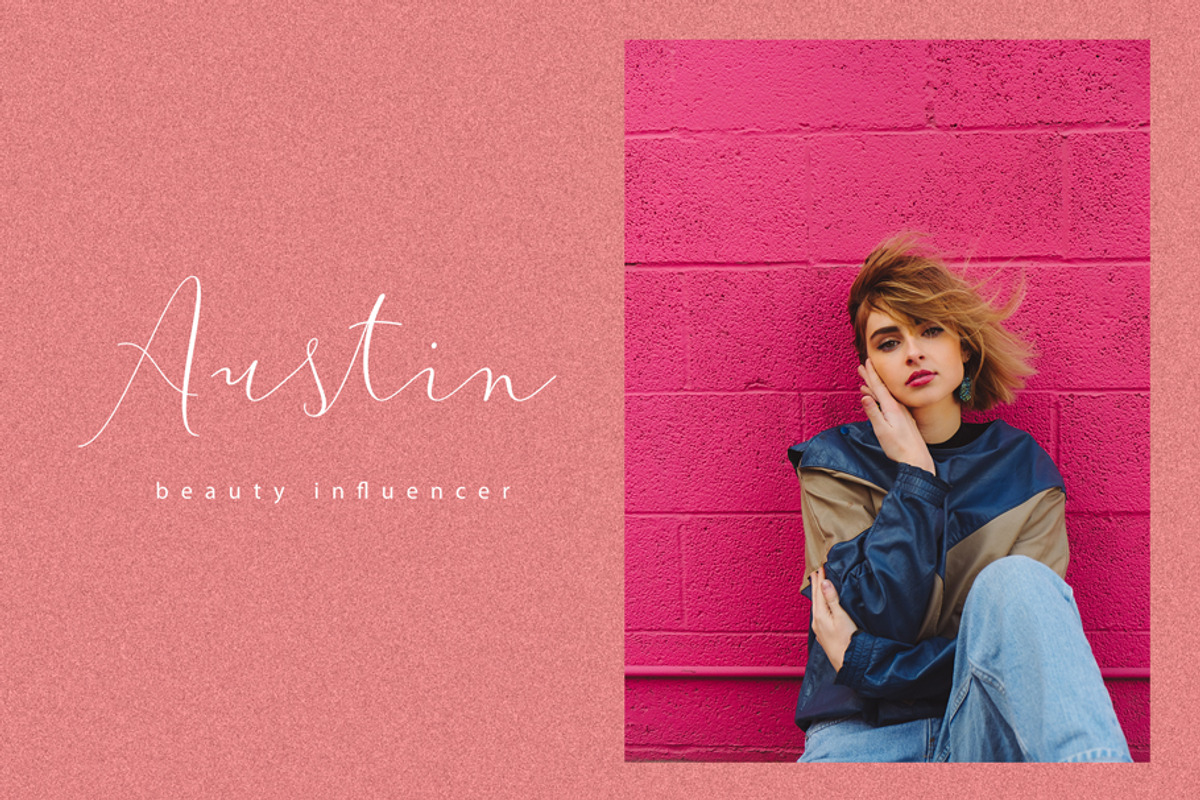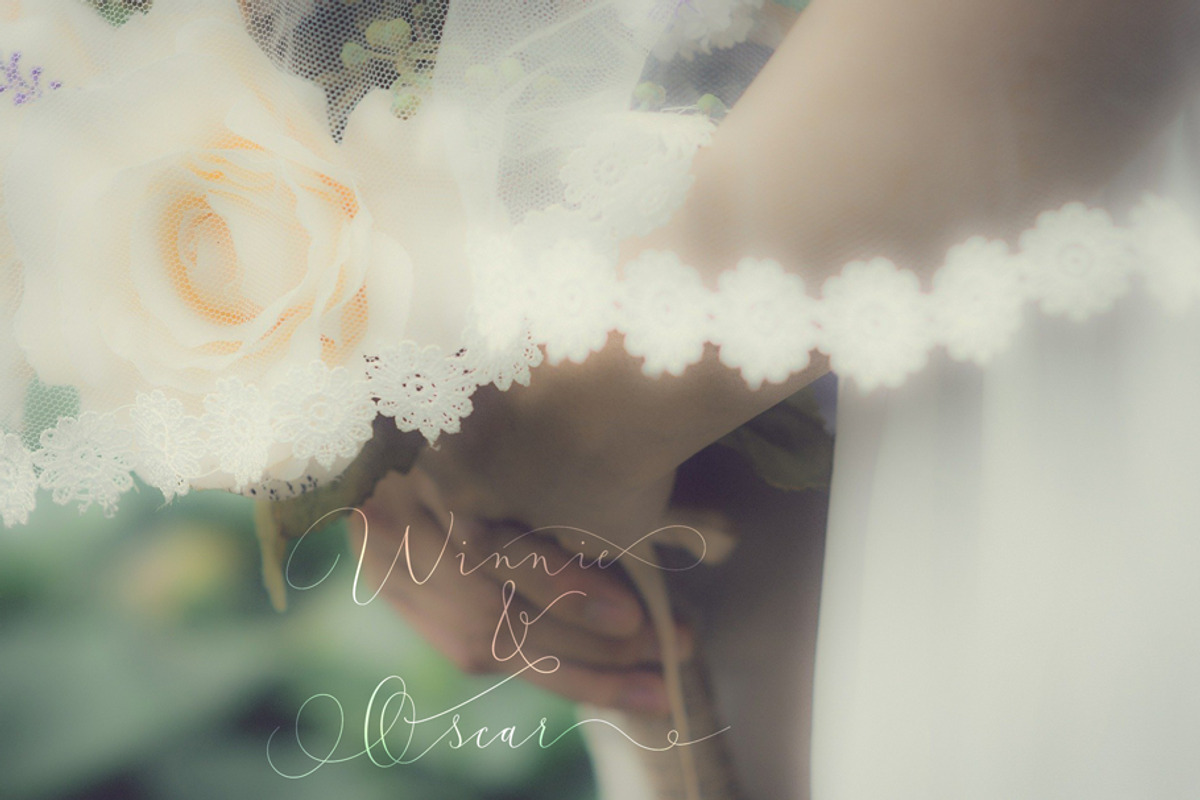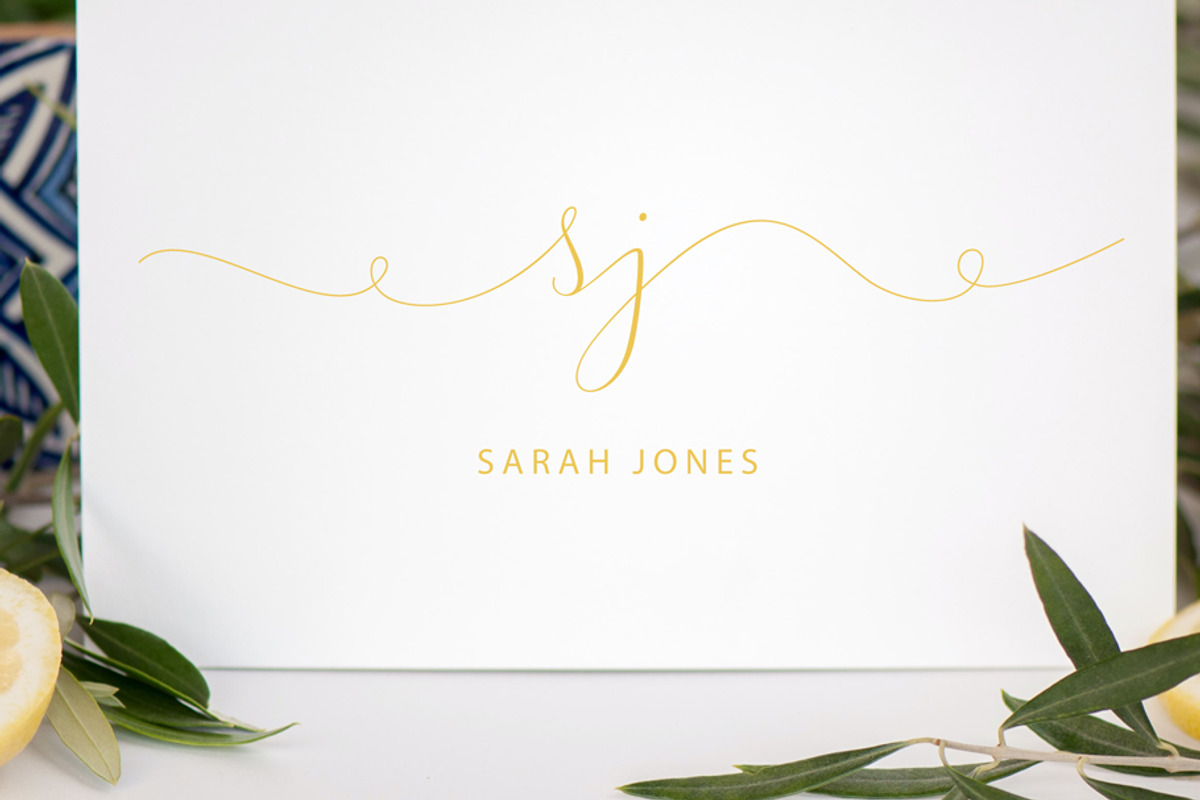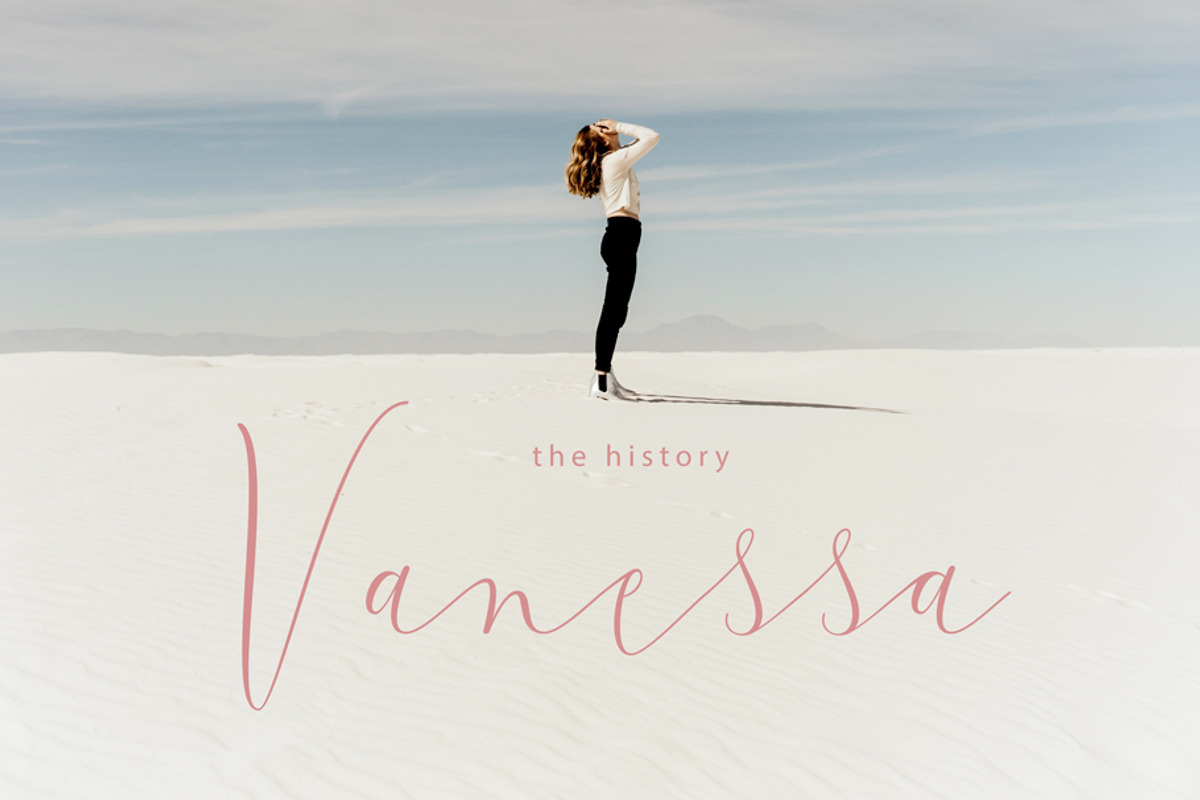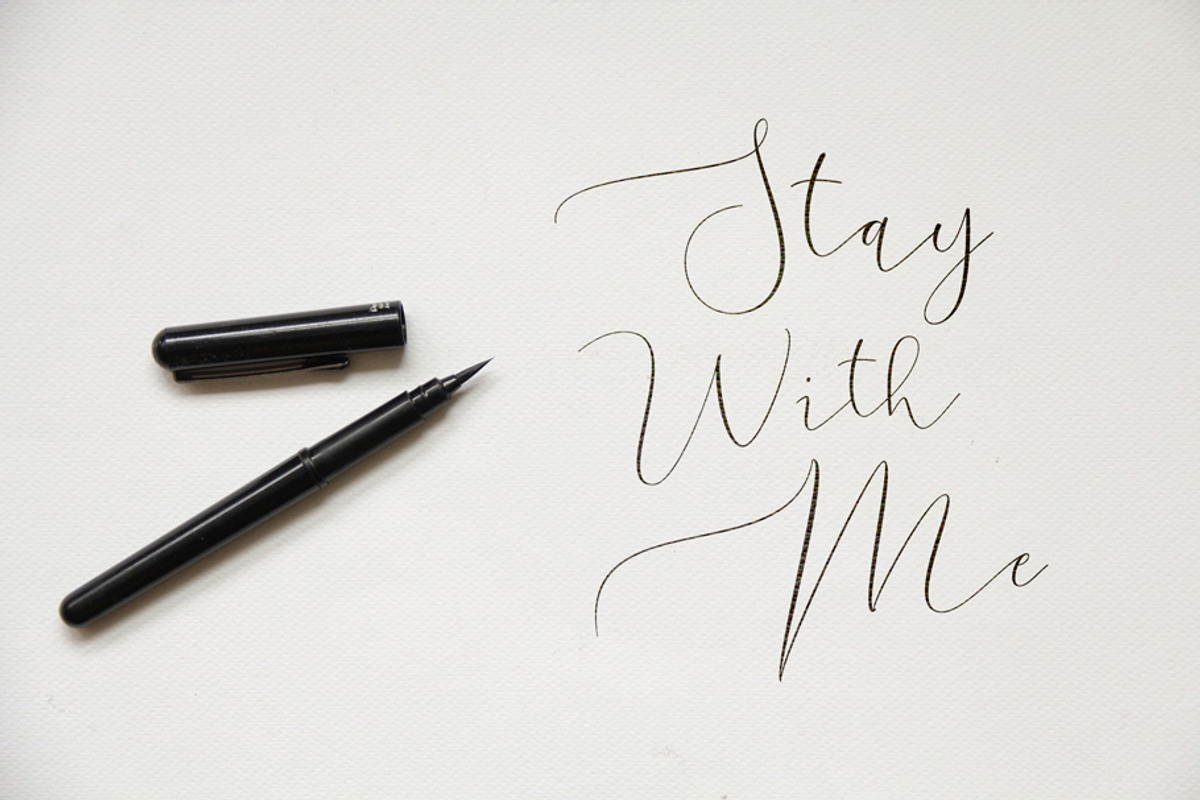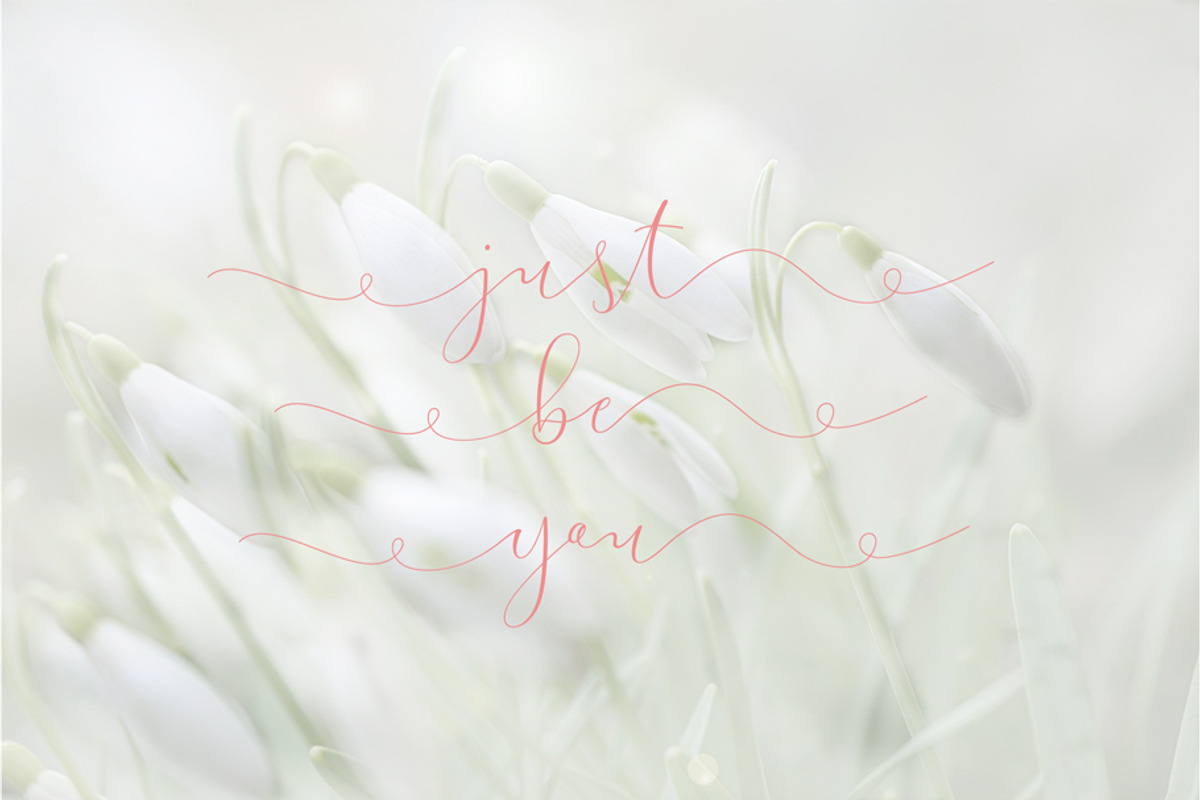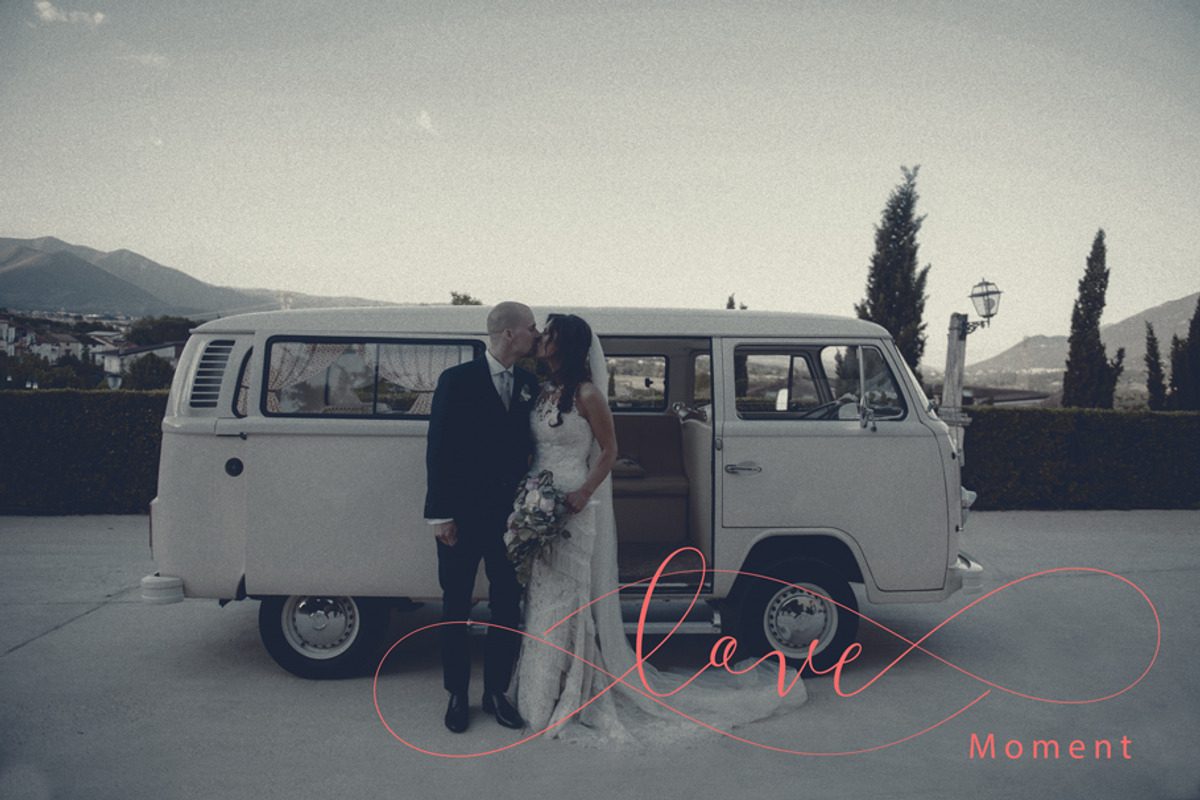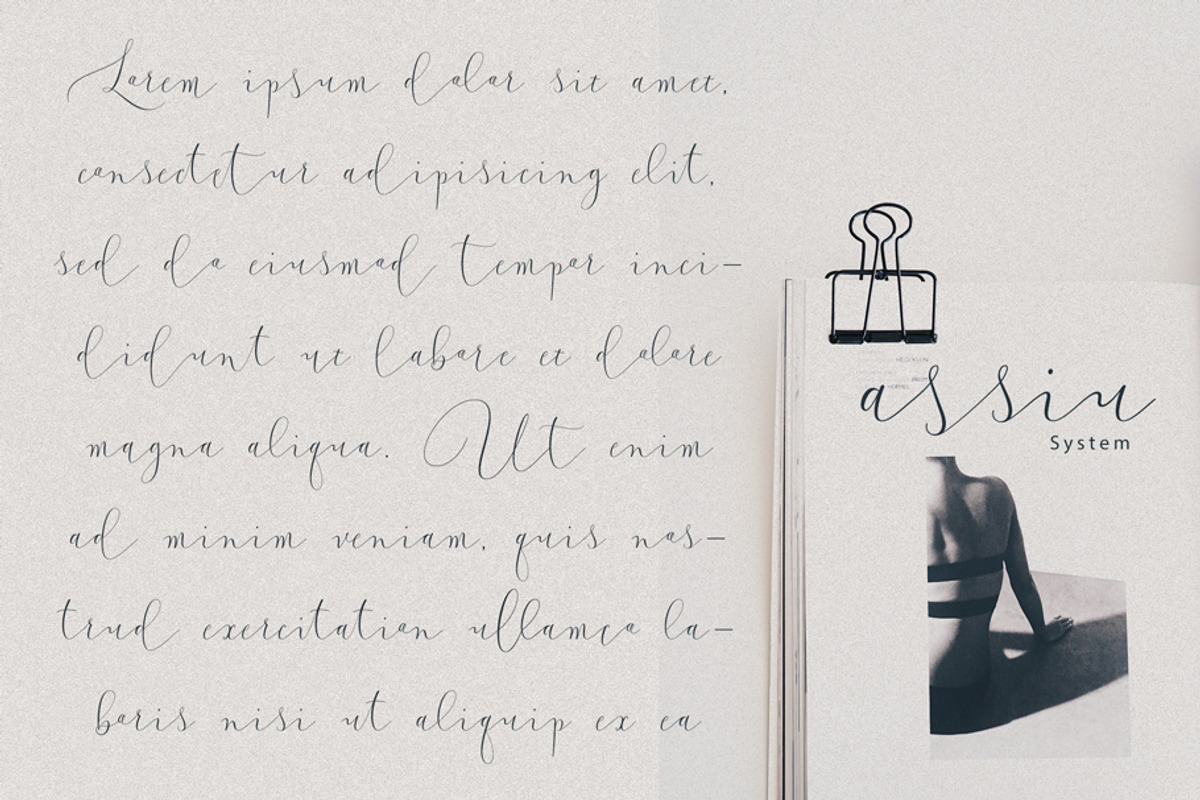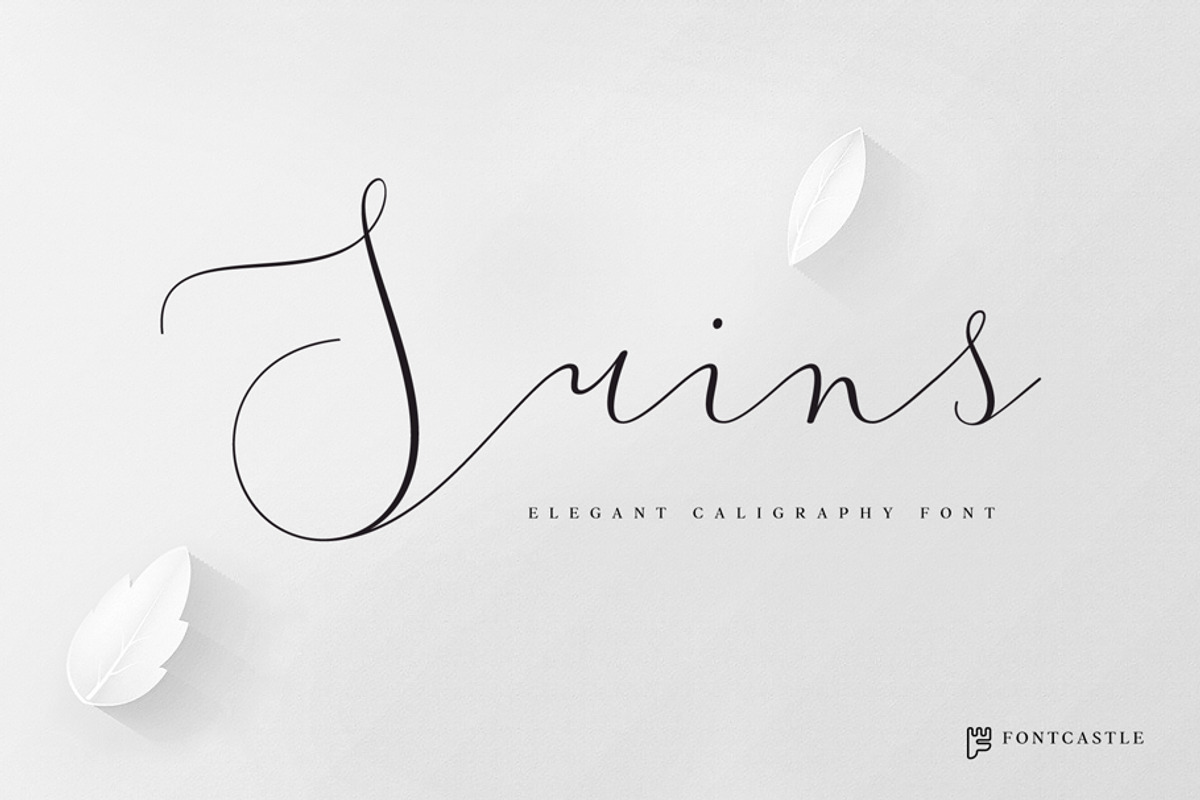
Suins - a script delicate elegant
Suins font is a delicate and elegant handwritten font. Its distinct and well rounded letters make this font a masterpiece. Fall in love with its incredibly versatile style and use it to create spectacular designs! This font is PUA encoded which means you can access all of the glyphs and swashes with ease!